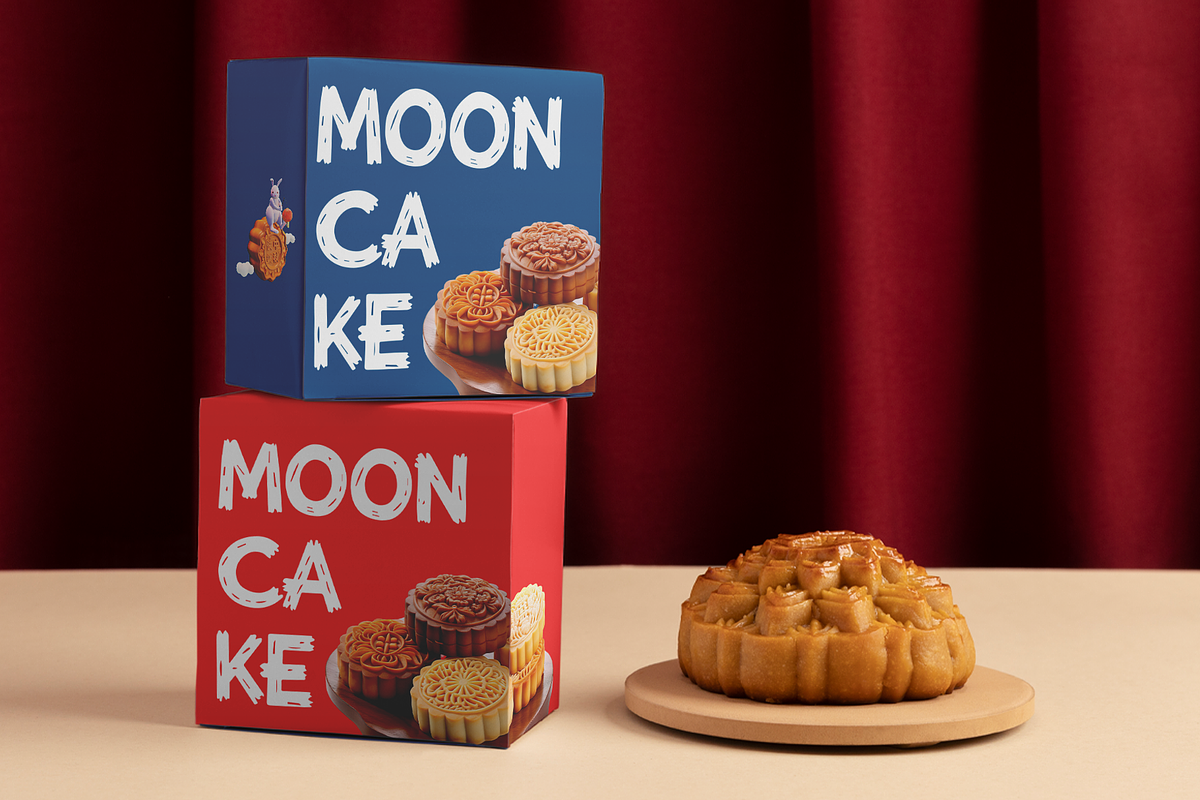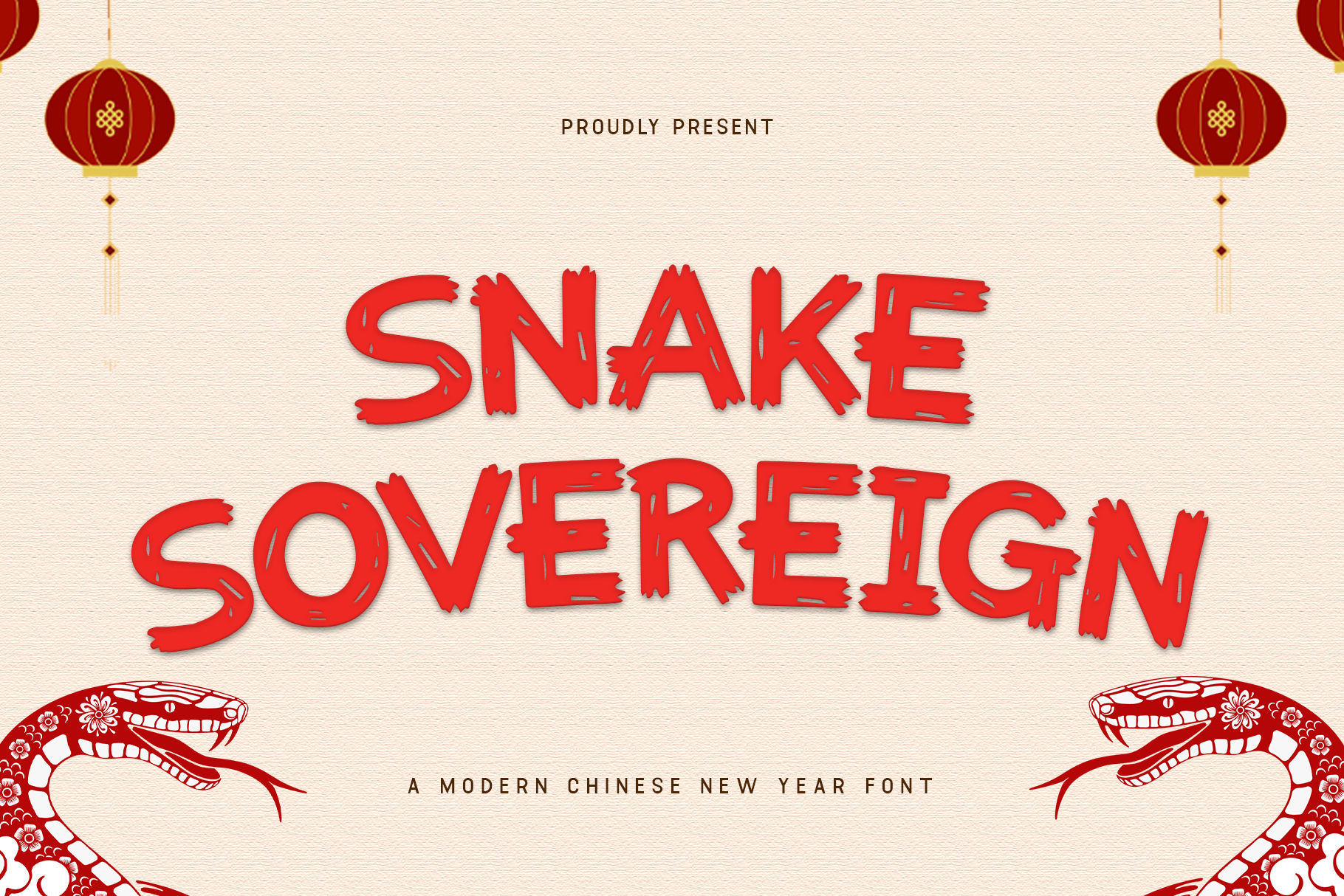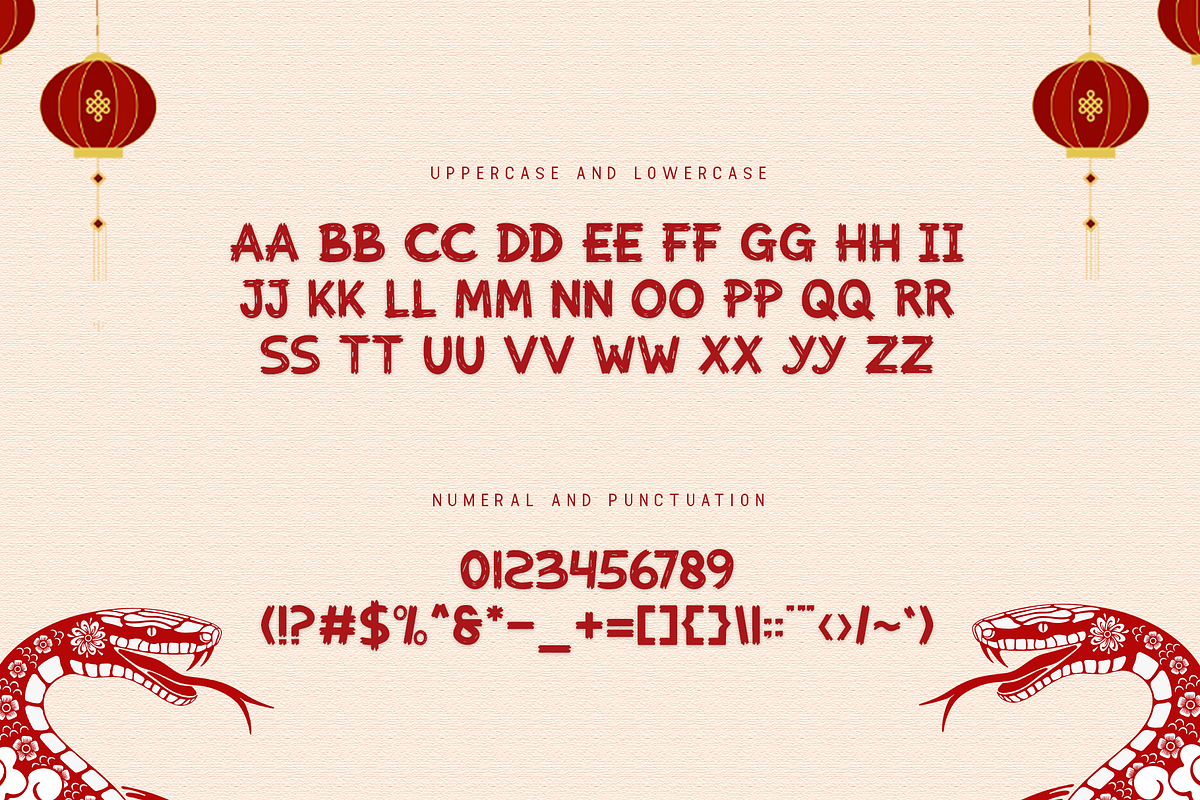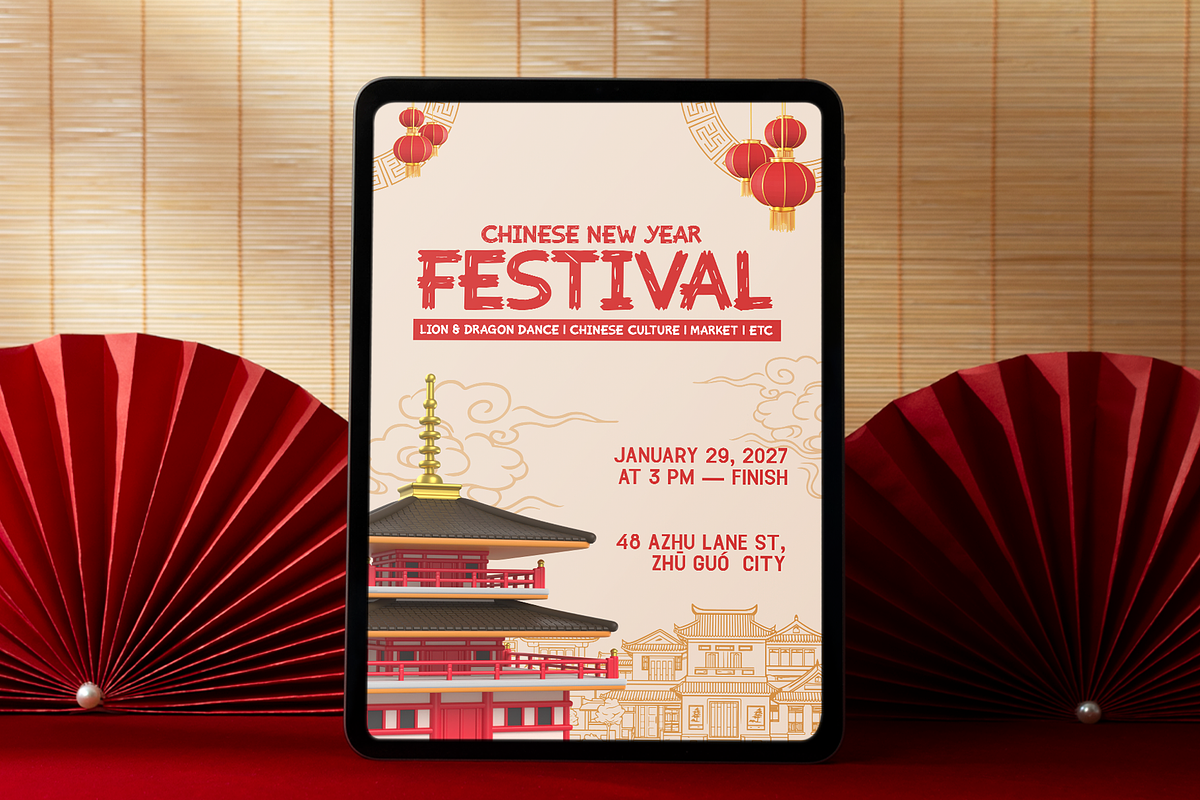
SnakeSovereign - Modern Chinese Font
Snake Sovereign - A Modern Chinese New Year Font
Introducing Snake Sovereign, a modern font designed to honor the mystical power and grace of the snake, perfectly suited for Chinese New Year celebrations. Combining traditional Chinese elements with sleek, contemporary design, this font brings an air of sophistication and strength to your creative projects.
With its fluid lines and bold, commanding presence, Snake Sovereign is ideal for festive invitations, event posters, branding, and social media content. Its refined and powerful aesthetic represents wisdom, renewal, and good fortune qualities that resonate deeply with the spirit of the Lunar New Year.
Whether you're designing a stunning greeting card, a striking logo, or a festive promotion, Snake Sovereign makes a statement with every letter. Featuring multilingual support and a full character set, this font offers the flexibility and elegance needed for a range of creative applications.